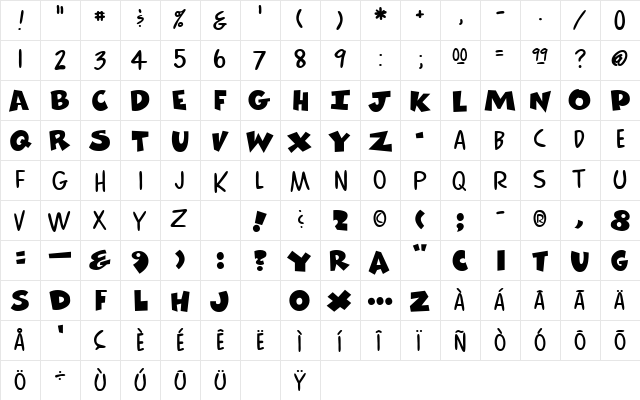
Comics Regular
Design Context for Comics Typeface
Comics trades formality for fun, with bouncy, characterful letterforms that bring warmth and energy to any project.
Font Pairing: Pairs well with a rounded or humanist sans for body copy, maintaining the friendly tone without relying on Comics to carry extended reading.
Pro Tip: Use Comics at larger display sizes where its expressive character can land. Pair with a clean, simple sans for body copy to maintain readability.